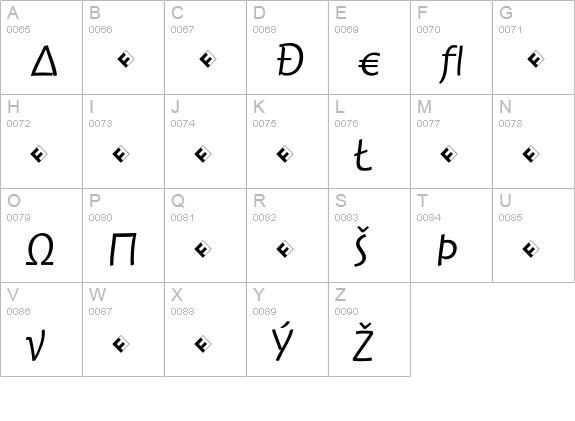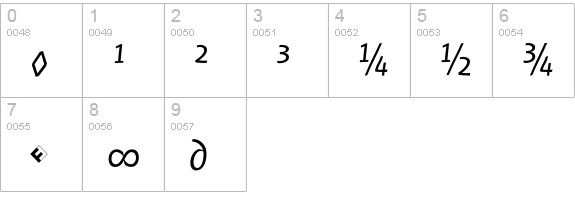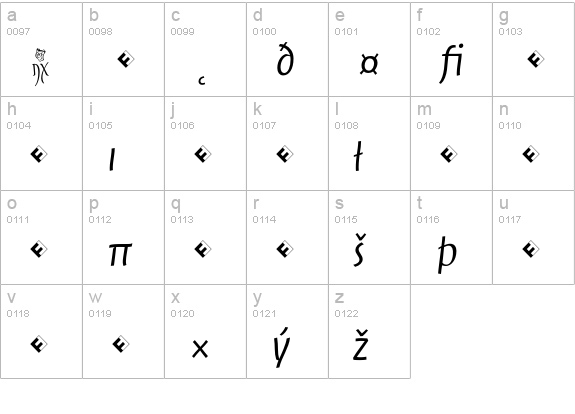
Jambono-LightExpert font is a visually stunning typeface that offers a perfect balance between elegance and modernity. Its sleek and sophisticated design is sure to catch the eye and leave a lasting impression. This font is ideal for various design projects, including branding, advertising, packaging, and more. Whether you're designing a logo, creating a website, or designing a poster, Jambono-LightExpert font will bring a touch of professionalism and style to your work. One of the best things about Jambono-LightExpert font is that it is free! Yes, you read that right. This high-quality font is freely available to download at FontsMarket.com. Now you can enhance your designs without worrying about any additional costs. With its clean and legible characters, Jambono-LightExpert font is easy to read both on screen and in print. Its versatility allows it to be used in a variety of contexts, making it a must-have for any designer's toolkit. Whether you're a professional designer or a novice, Jambono-LightExpert font is sure to elevate your design projects to the next level. Its timeless appeal and effortless style will make your work stand out from the crowd. Don't miss out on this amazing opportunity to download Jambono-LightExpert font for free at FontsMarket.com and take your designs to new heights.